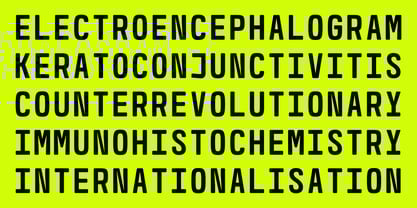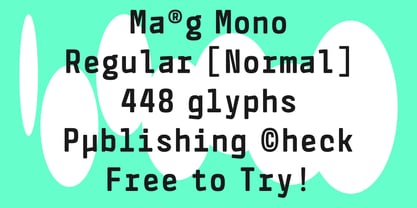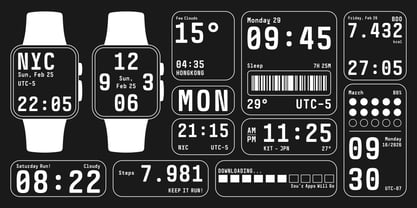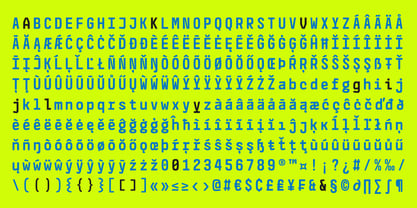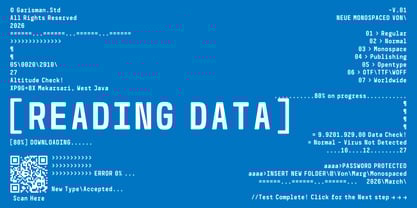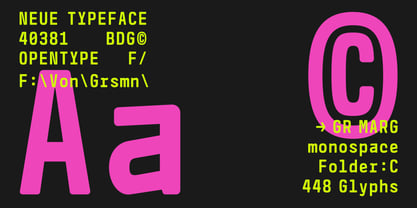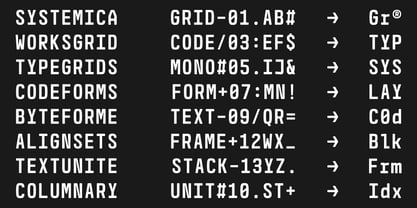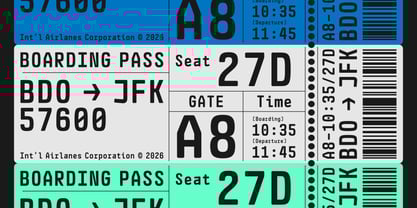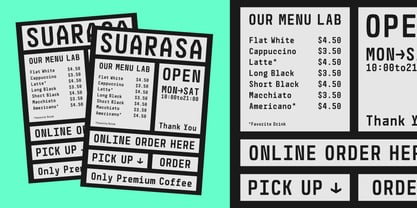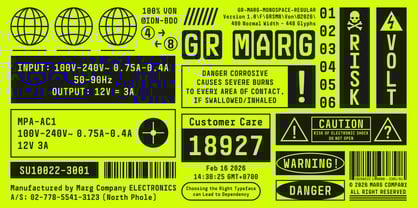
GR Marg Mono
by Garisman Studio
The GR Marg Mono Font Family was designed by Risman Ginarwan and published by Garisman Studio. GR Marg Mono contains 1 styles.
GR Marg Monospace is a modern display monospace typeface designed for precision, alignment, and digital clarity. Built with a structured fixed-width system, every character occupies the same horizontal space—creating perfectly aligned layouts for both technical and creative applications. Inspired by programming environments, console interfaces, smartwatch displays, boarding tickets, and data-driven dashboards, GR Marg Monospace blends coding aesthetics with contemporary visual design. The letterforms are clean, systematic, and engineered for readability, making them equally effective in code editors and futuristic posters. GR Marg Monospace works perfectly for scripting, system operations, statistics, invoices, UI/UX layouts, startup branding, modular posters, and tech-forward headlines. It delivers a technical voice without sacrificing modern design appeal.